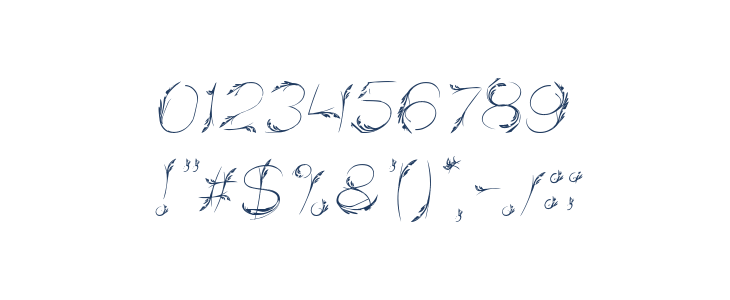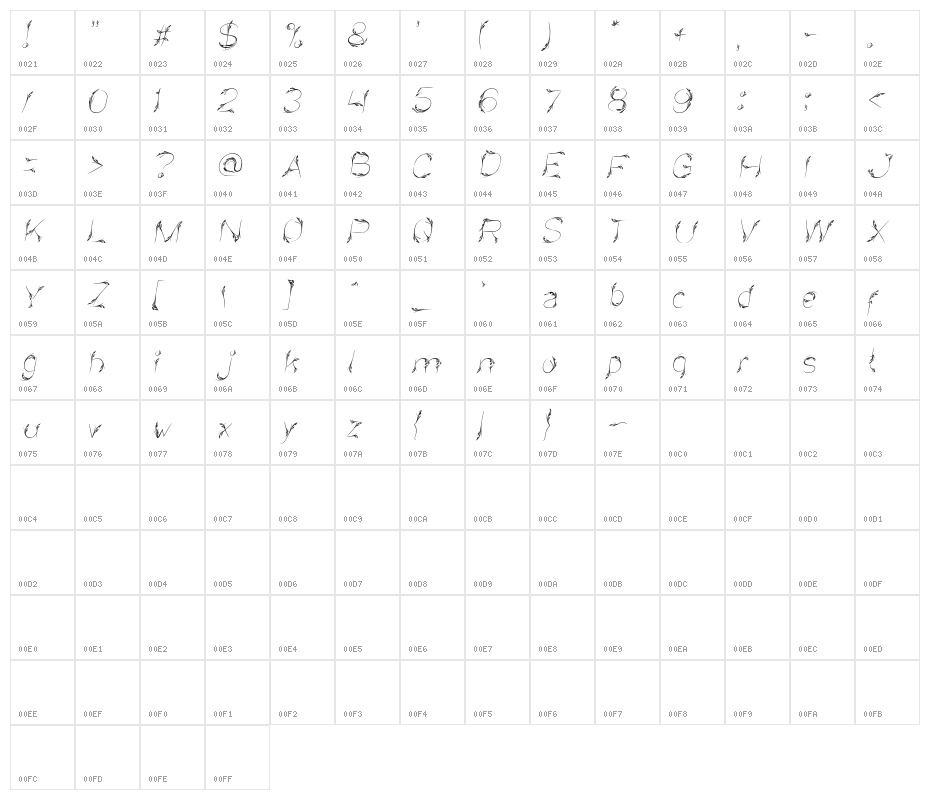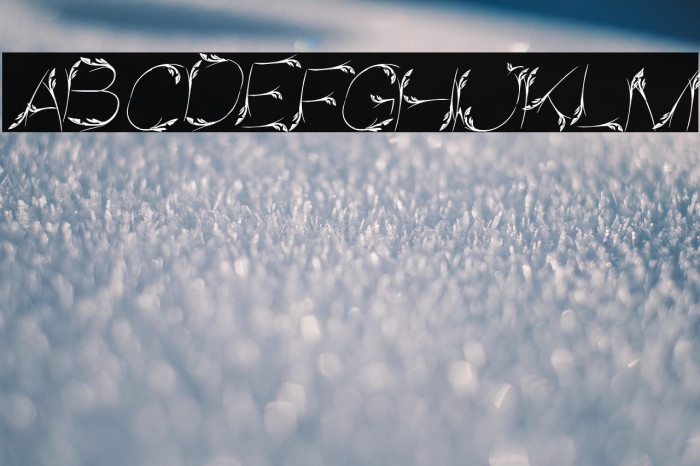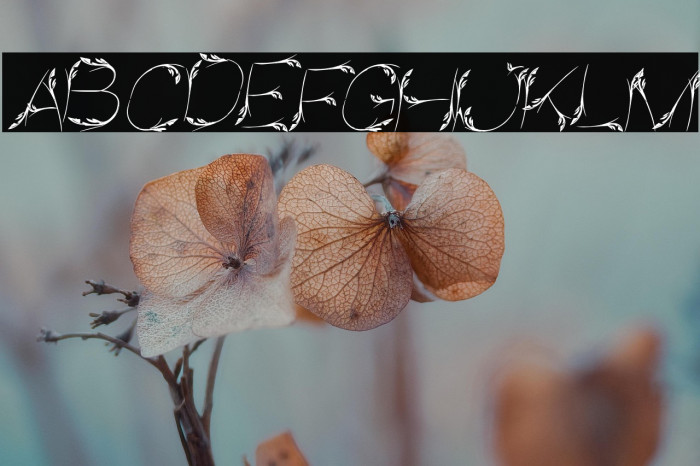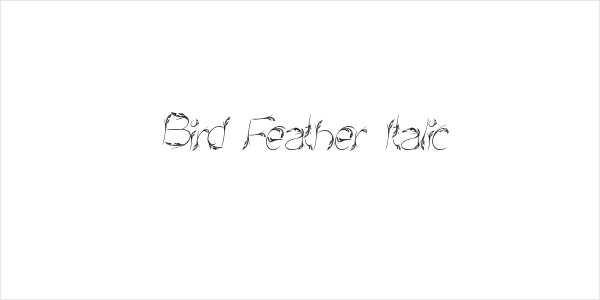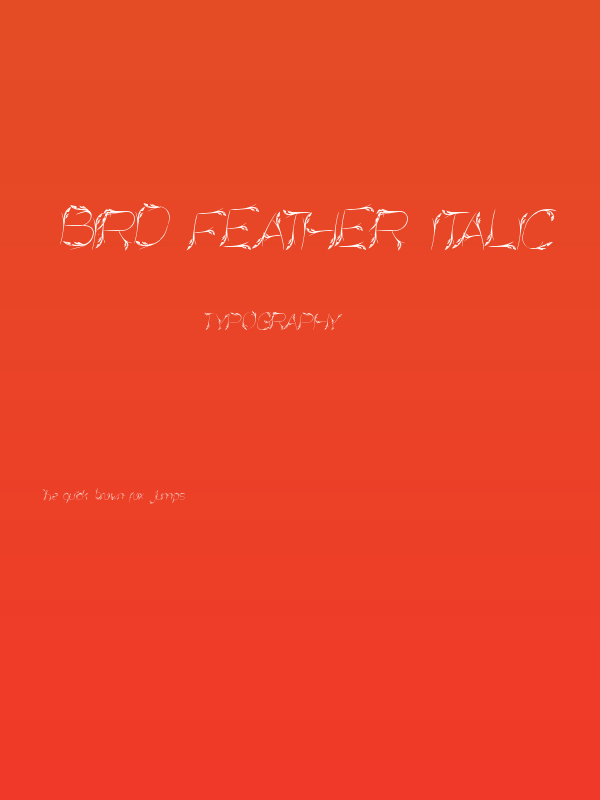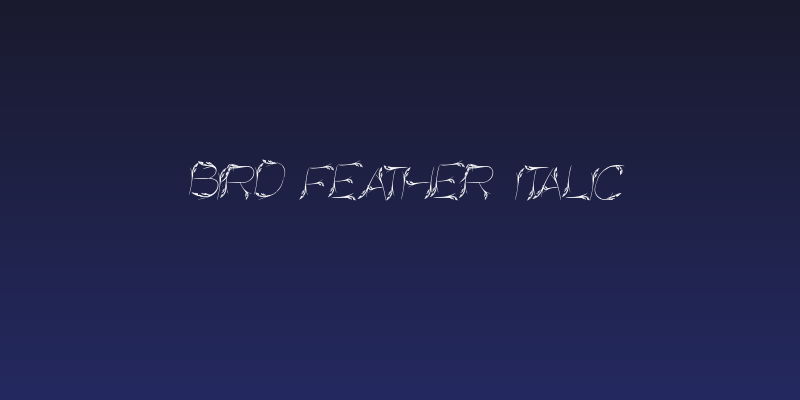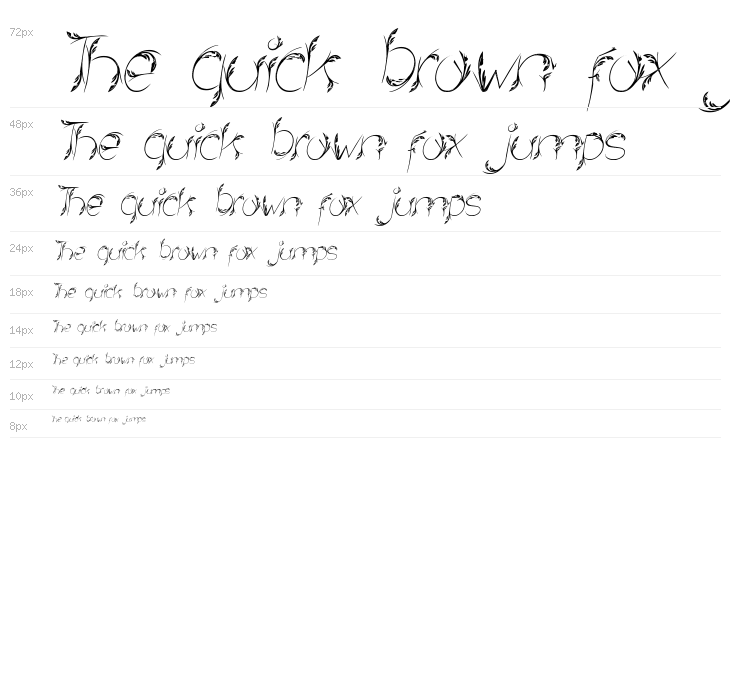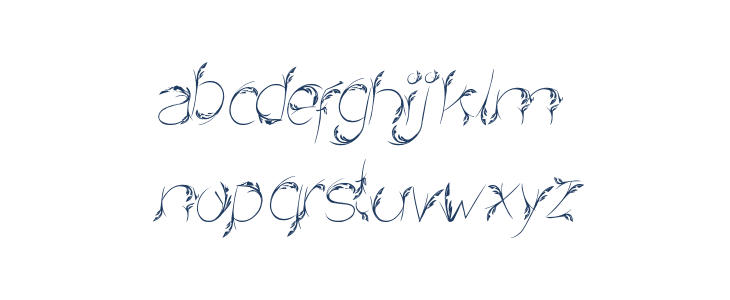
Bird Feather Italic Font
Bird Feather Italic Description
This font features a unique and decorative style, with each character adorned with intricate feather-like embellishments. The letters are italicized, giving them a dynamic and flowing appearance. The strokes are delicate and detailed, resembling the natural curves and textures of bird feathers. This artistic design adds a whimsical and organic feel, making it stand out for creative and nature-inspired projects. The font maintains readability while offering a distinct visual appeal, perfect for capturing attention in various design contexts.
| Use Case | Headlines, Logos, Artistic projects |
| Proposed Projects | Ideal for nature-themed branding, invitations, artistic posters, and decorative headlines. |